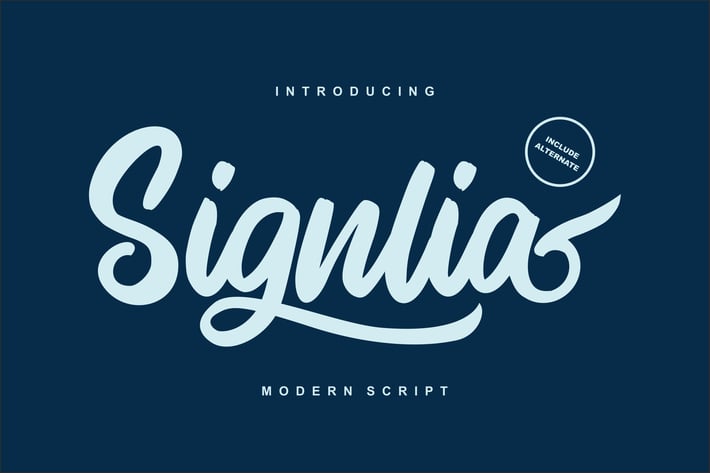
Signlia | Modern Script Font
Signlia | Modern Script Font with a calligraphy style, So beautiful on invitation like greeting cards, branding materials, business cards, quotes, posters, and more!